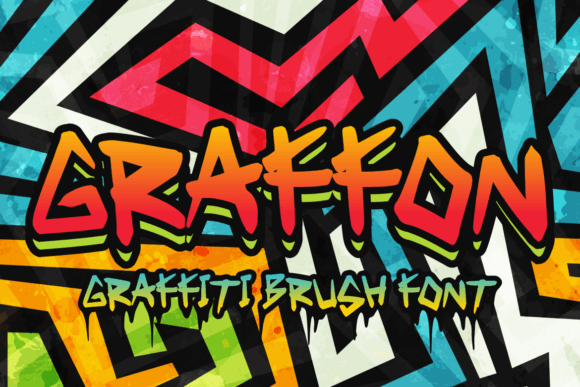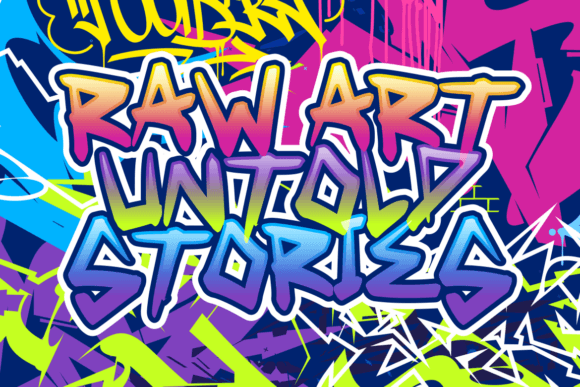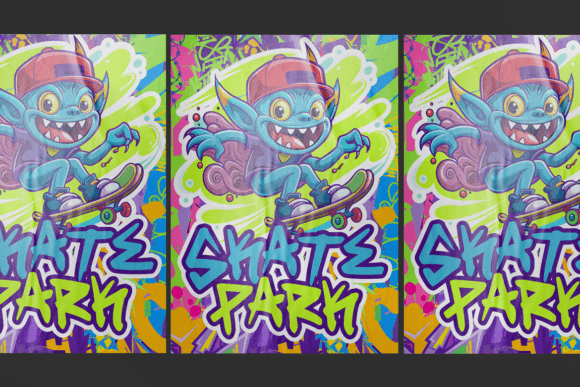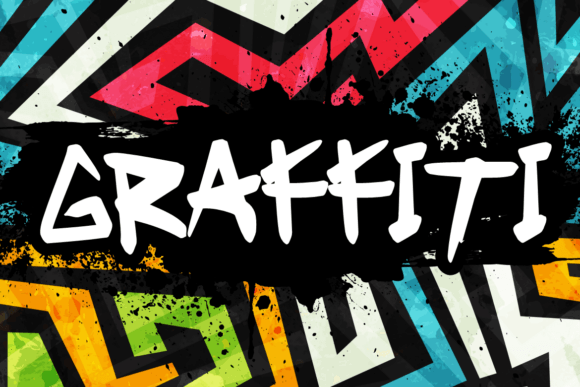
Graffon Font
About the Graffon Font
From logos to headlines, the Graffon Font is the perfect choice for making a lasting impression. Introducing Graffon – Graffiti Brush Font, the quintessential typeface that embodies the spirit of street art. This font is not just a typeface; it’s a bold statement, a rebellion against the mundane. With its rough and ready brush strokes, Graffon brings the raw energy of urban streets to your design projects. Each letter is crafted with the freestyle essence of graffiti – unpredictable, expressive, and unapologetically unique. The jagged edges and vibrant splashes of color mimic the look of spray paint on a concrete canvas, making it perfect for those who want to infuse their work with authenticity and attitude.
Graffon is versatile enough to elevate any project – from eye-catching logos that demand attention to movie titles that capture the essence of an urban saga. It’s ideal for branding projects that aim to stand out in a crowded marketplace or crafting invitations that break free from convention. Packaging designs adorned with Graffon speak volumes without saying a word, while posters and book covers gain an edge that sets them apart. Whether you’re designing stickers or greeting cards, this font ensures your message isn’t just seen; it’s felt.
Graffon Font Usage Examples
Graffon Font Example